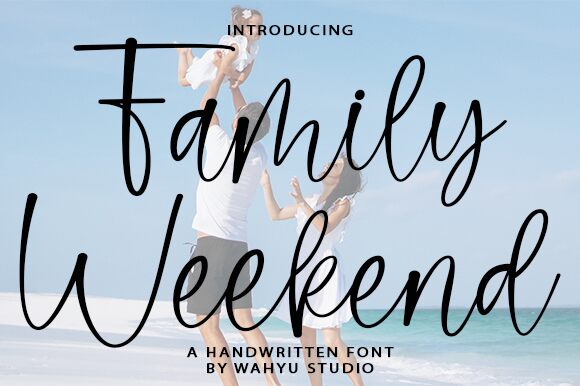
Family Weekend, a handwritten treasure from the creative minds at Wahyu Studio, exudes a personal touch with its semi-light weight that gracefully dances across the page. Its aesthetic is effortlessly charming, inviting feelings of warmth and casual elegance. Perfectly balancing readability with personality, Family Weekend brings an authentic handwritten style to any project.
With its inviting curves and flowing lines, this font is a natural fit for invitations, greeting cards, and personal blogs where a touch of human presence is desired. The semi-light weight of Family Weekend ensures that it maintains an airy feel without sacrificing the impact of each character's distinct shape. Whether you're looking to capture the nostalgia of ink on paper or simply add a dash of individuality to your digital designs, Family Weekend offers versatility and style in equal measure.